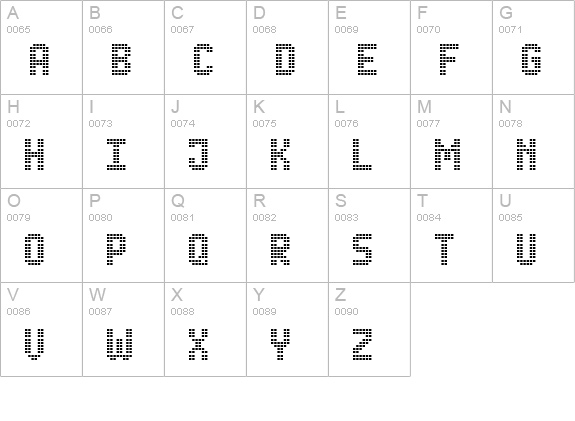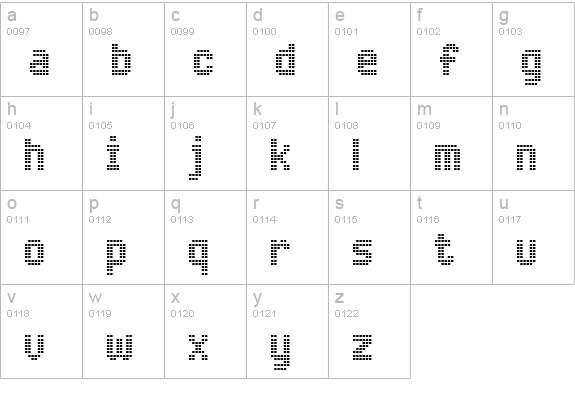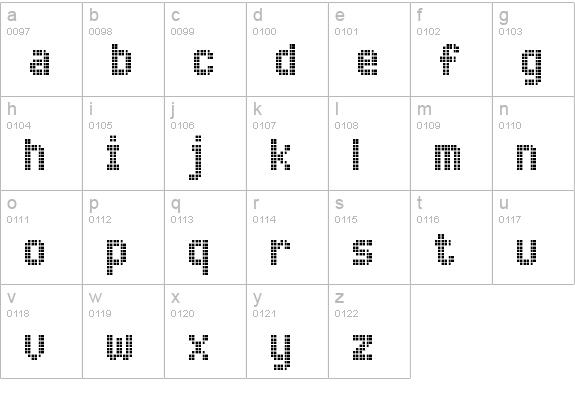
Advanced LED Board-7 Font Details
The Advanced LED Board-7 font is an incredible display typeface that will bring your designs to life with its captivating and eye-catching style. This font is perfect for creating attention-grabbing headlines, signage, logos, and more. With its unique LED-inspired design, the Advanced LED Board-7 font is sure to make a bold statement in any project. Each character showcases the distinctive appearance of LED lights, adding a touch of modernity and sophistication to your designs. But what makes this font even more appealing is that it is freely available to download at FontsMarket.com. Yes, you heard it right, this amazing font can be yours without any cost. FontsMarket.com is a trusted source for high-quality fonts, and they have made the Advanced LED Board-7 font accessible to everyone for free. So, whether you're a professional designer looking to add a touch of brilliance to your work or a hobbyist searching for a unique font to enhance your personal projects, the Advanced LED Board-7 font is the perfect choice. Download it today from FontsMarket.com and let your creativity shine with this exceptional font.